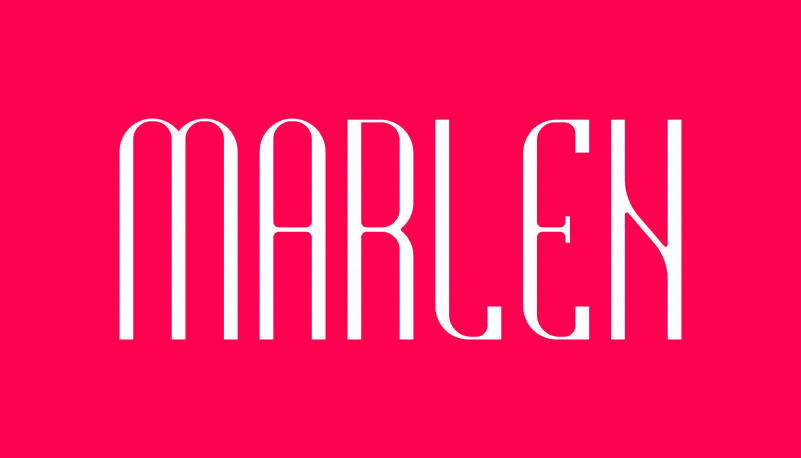
Marlen is modern art-deco typeface inspired by various fashion magazine covers and curved shapes of the mother nature.
Font Designer: Alexander Sheliketo